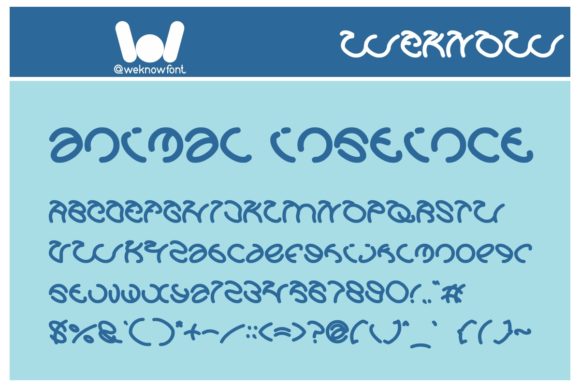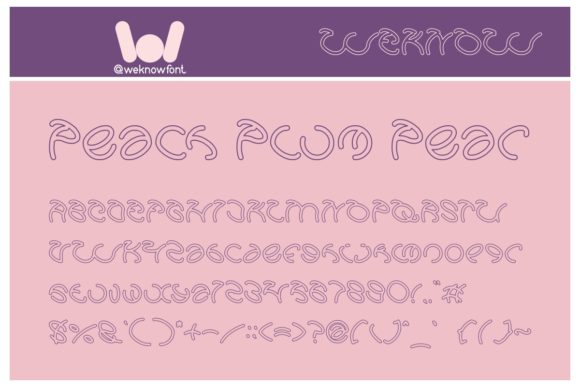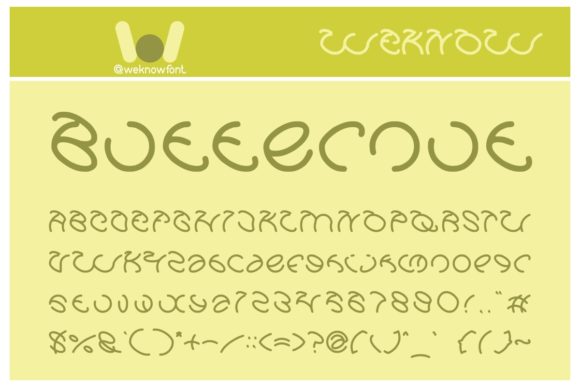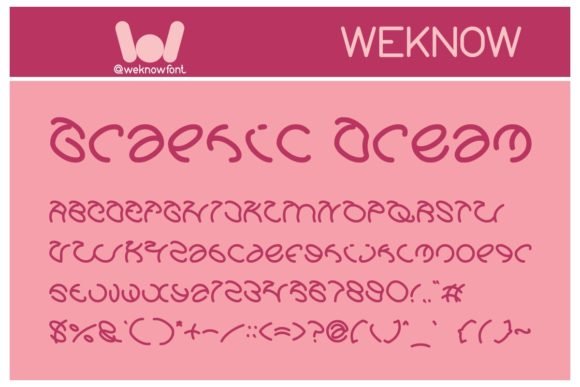
Introduction to Graphic Dream Font
Graphic Dream is an incredibly unique and interesting display font.
Asymmetric and unusual, this font will make each of your designs stand out .
Graphic Dream Font offers exceptional quality and versatility, making it a valuable addition to your design toolkit. Whether you’re creating for personal projects or commercial use, Graphic Dream Font delivers professional results.